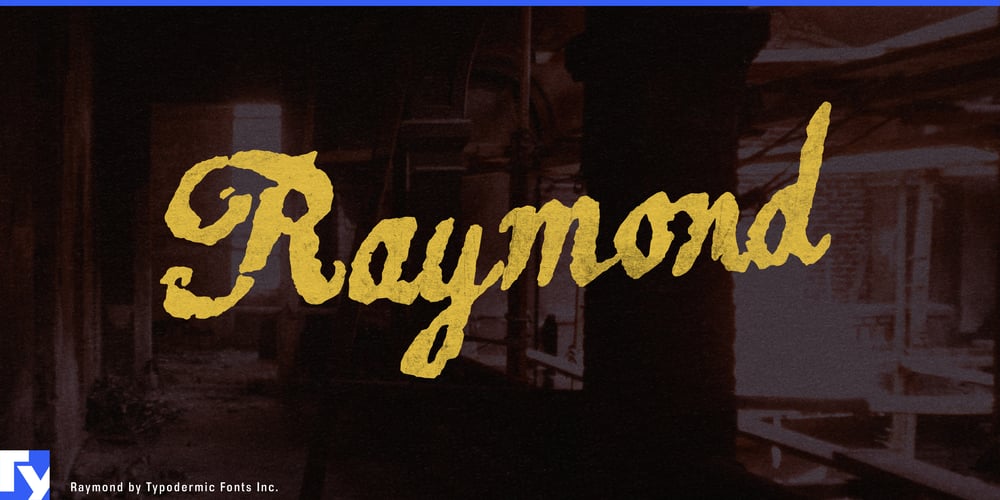
Raymond Font Family was designed by Ray Larabie and published by Typodermic. Raymond contains 1 styles and family package options. Prepare to chart unexplored territories in design with Raymond, the typeface that turns imperfection into an art form. Like a well-worn map or a trusty compass, Raymond guides your message through a landscape of authenticity and raw charm.This is a journey into the heart of typographic adventure. Raymond’s rough, textured script and unevenly stamped letters are the typographic equivalent of muddy boot prints and weather-beaten gear. Each character tells a story of paths less traveled and challenges overcome. Beneath its rugged exterior, Raymond harbors a sophisticated soul. Its letterforms are crafted with the precision of a master cartographer, balancing refinement with an untamed spirit. The worn edges and misaligned characters aren’t flaws—they’re badges of honor, testaments to the typeface’s intrepid nature.Need to craft a manifesto that rallies the troops? Raymond’s got your back. Want to create a journal that speaks of far-off lands and daring exploits? Raymond is your trusted companion. This typeface doesn’t just cross borders—it erases them. Supporting a vast array of Latin-based European writing systems, Raymond is fluent in languages from Afrikaans to Zulu. Your message will resonate with the authenticity of a seasoned globetrotter, no matter where your design adventure takes you.Why settle for the beaten path when you can blaze new trails? Get Raymond now and watch as it transforms your designs from mundane to extraordinary. With Raymond as your guide, every project becomes an expedition into the heart of creative wilderness.